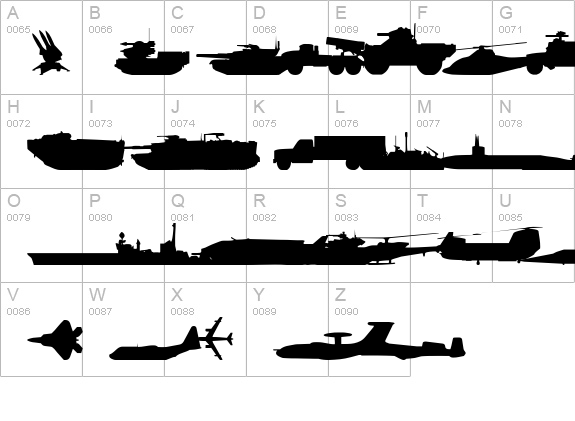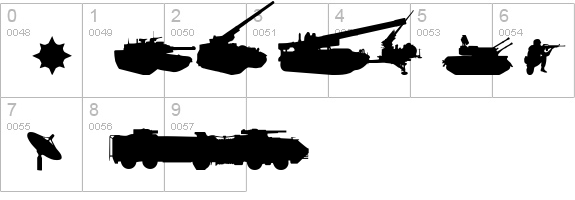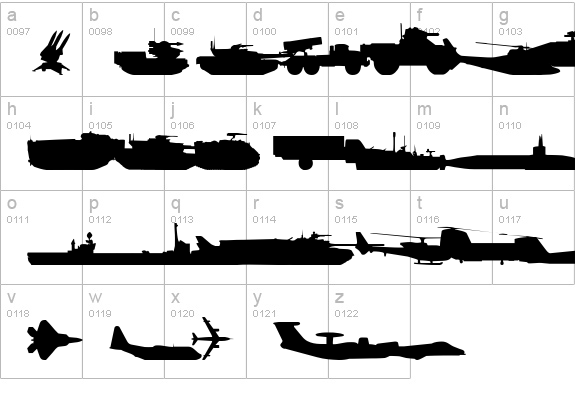
Military RPG Font Details
The Military RPG font is a bold and commanding typeface designed to convey strength and authority. With its sharp angles and rugged aesthetic, this font is perfect for creating a sense of power and determination in your designs. Whether you are working on a military-themed project, a video game interface, or a poster for an action-packed event, the Military RPG font will add a touch of intensity to your text. Best of all, this font is available for free download at FontsMarket.com. Simply visit the website and start using this powerful typeface in your projects today. Let the Military RPG font help you make a bold statement and stand out from the crowd.